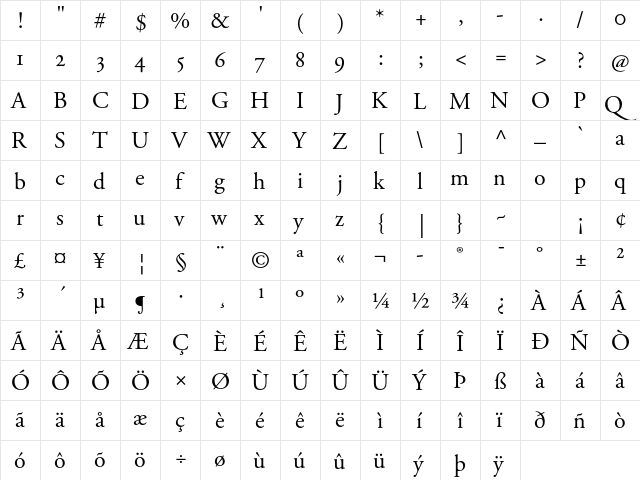
Hipermestra Regular
Design Context for Hipermestra Typeface
Hipermestra is a composed and adaptable typeface that performs quietly and consistently across a wide range of design contexts.